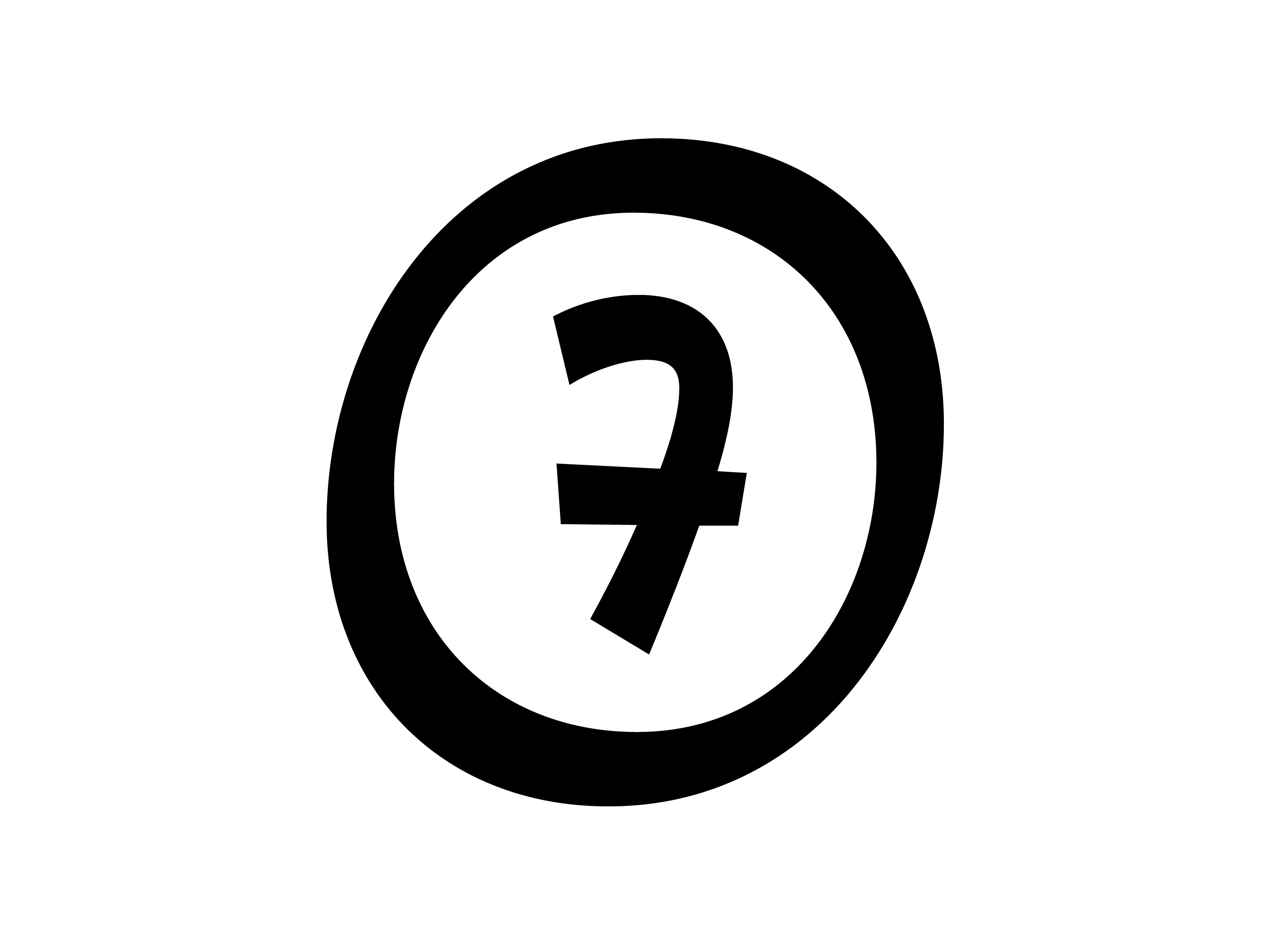
Cumbre Sharp font round numbers
Cumbre is built by balancing sharp angles and venturous curves. The stems are spiky, and they vary in width. Cumbre is oblique and unicase. It has condensed proportions, moderate weight contrast, spacious counters, pointy terminals, and square ink traps.